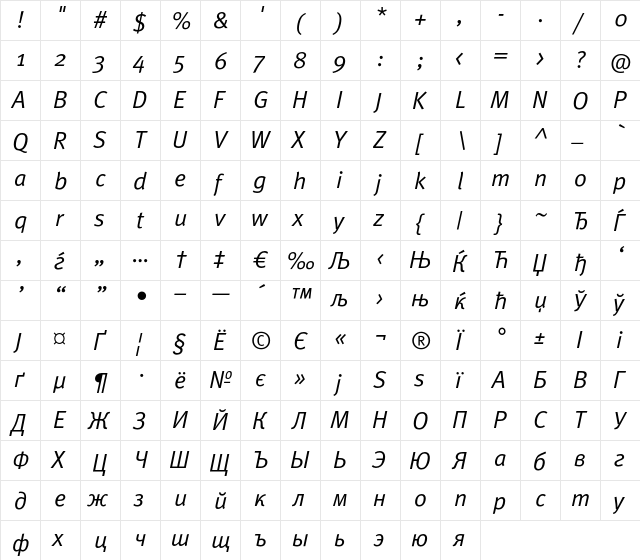
MetaNormalCyr-Italic Regular
Design Context for MetaNormalCyr-Italic Typeface
MetaNormalCyr-Italic is a composed and adaptable typeface that performs quietly and consistently across a wide range of design contexts. Its italic angle brings a sense of urgency and motion to the letterforms.
Pro Tip: Try MetaNormalCyr-Italic for annotation and caption copy alongside an upright companion — the contrast in angle creates a dynamic but ordered typographic system.